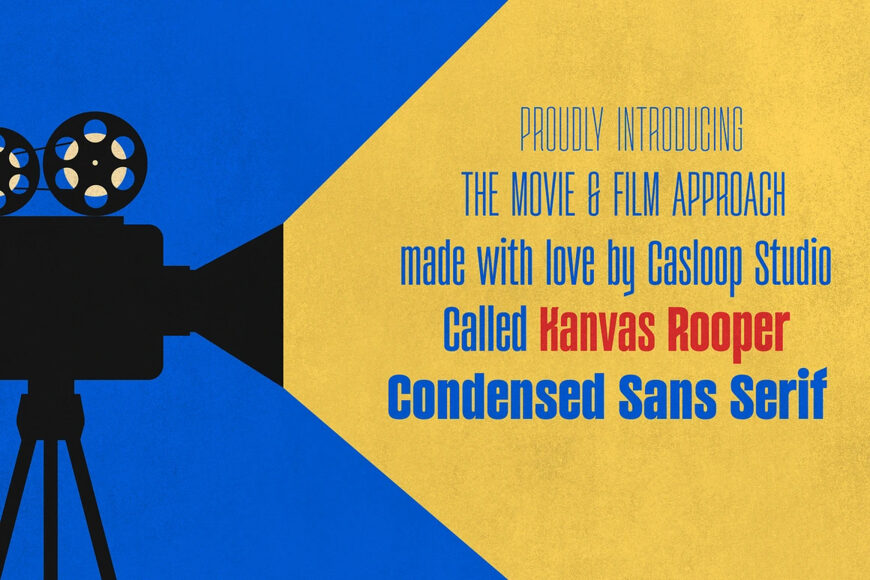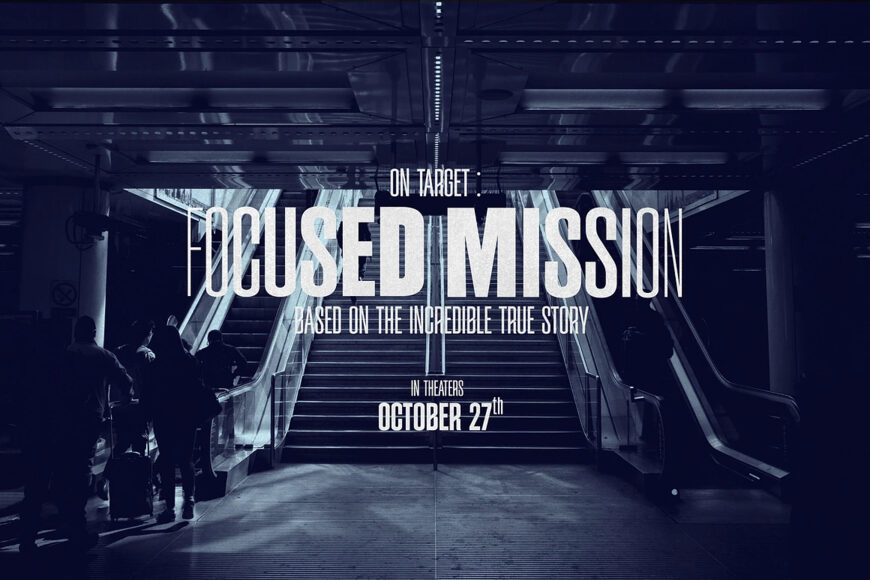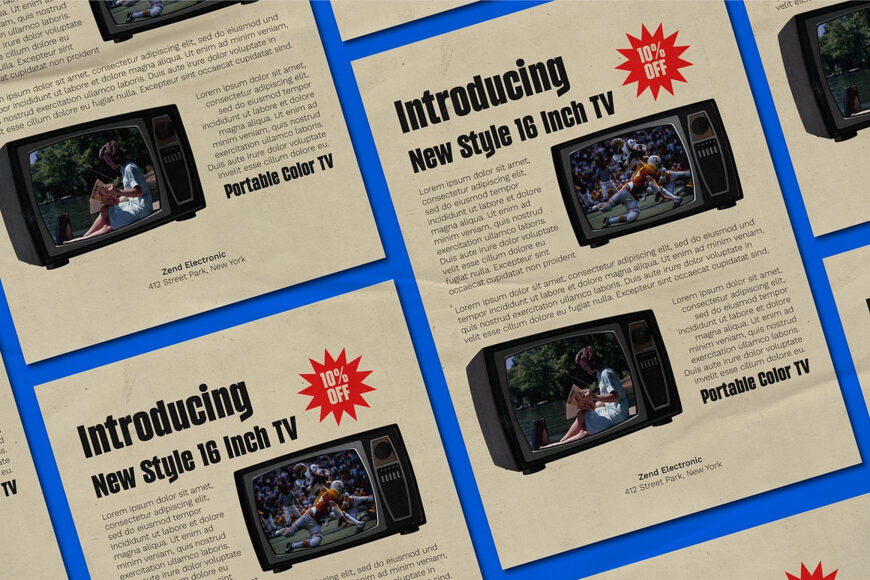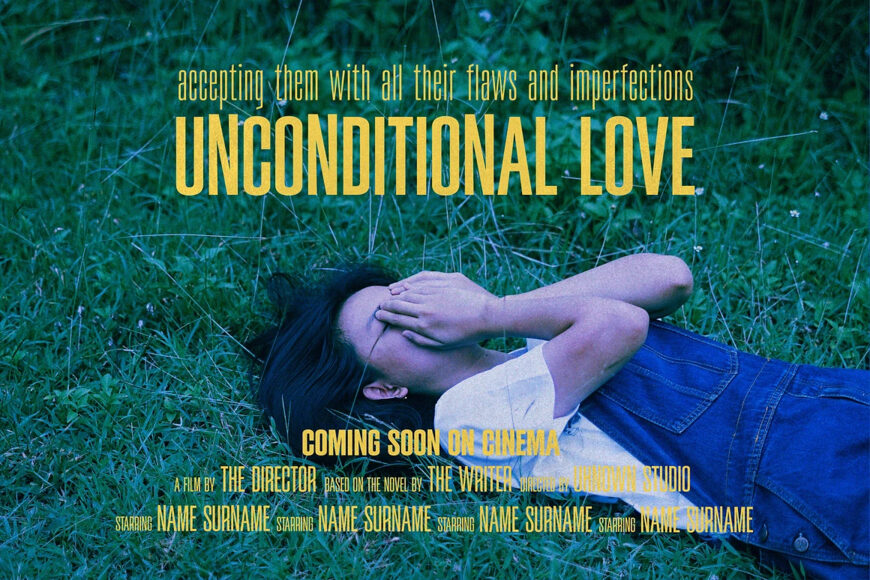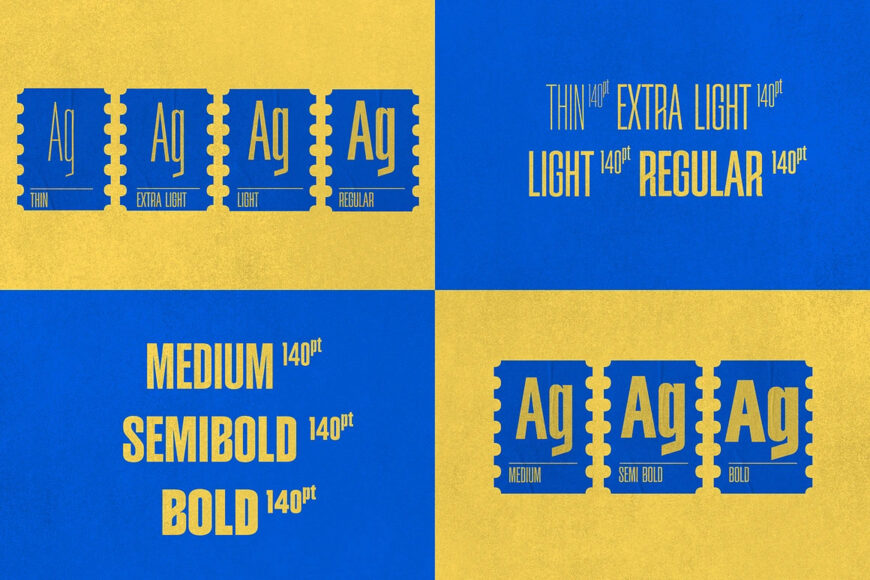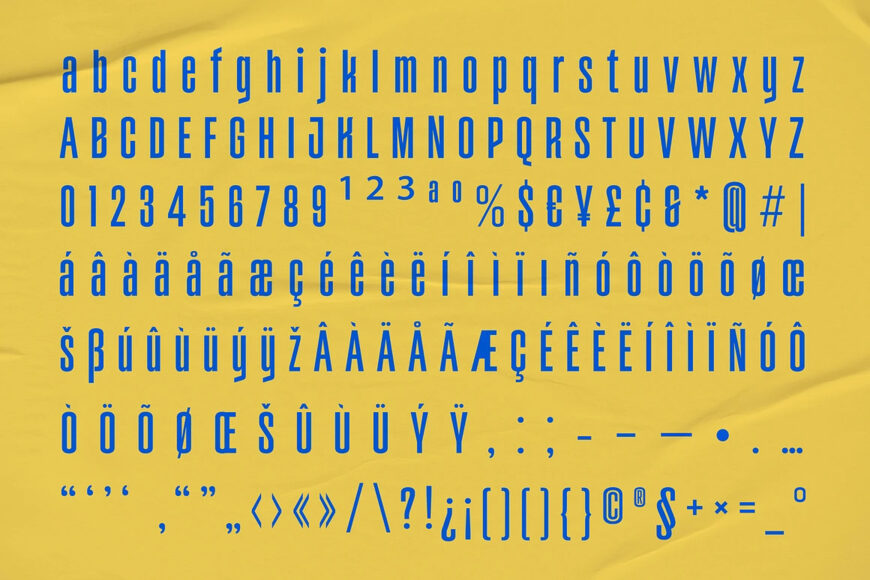
Introducing Kanvas Rooper, a condensed sans serif font that elevates your brand to new heights. Designed for professional excellence, its bold and condensed design grabs attention and adds a touch of sophistication to your projects.
With its versatility, Kanvas Rooper is perfect for a variety of business applications, making a lasting impression on your audience. Its unique aesthetic is ideal for businesses seeking to make a statement and stand out from the crowd.